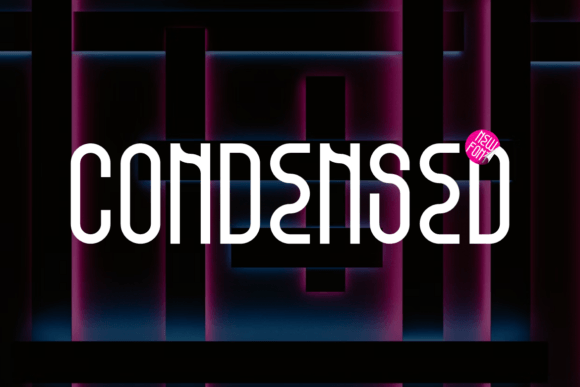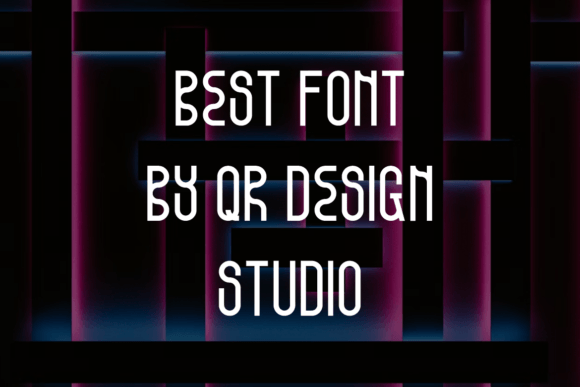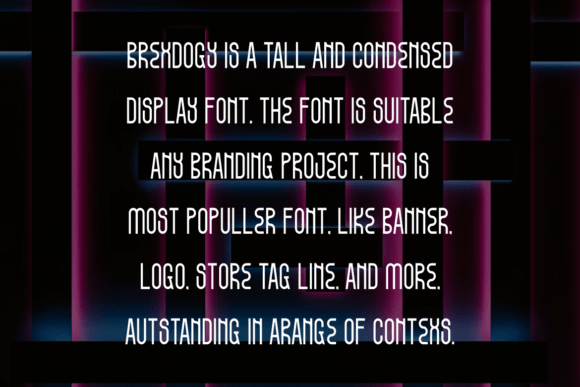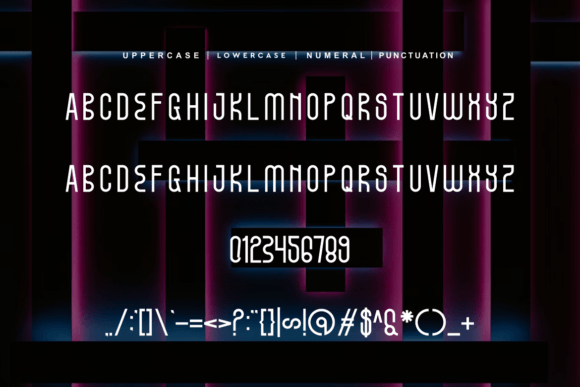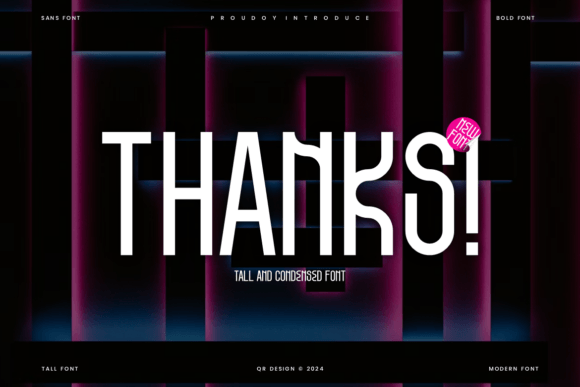
Introducing Brexdogy Font: The Ultimate Display Font for Bold Designs
In the world of typography, fonts play a crucial role in conveying the tone and personality of a brand. For designers and crafters, finding the perfect font that embodies the essence of their project can be a daunting task. However, if you’re looking for a bold and authentic display font that can elevate your branding projects, look no further than Brexdogy Font. In this article, we’ll dive into the features and benefits of Brexdogy – Tall Font and explore its versatility in various design contexts.
What is Brexdogy Font?
Brexdogy – Tall Font is a bold and authentic display font designed to make a statement. Its tall and striking appearance makes it perfect for branding projects that require a strong visual presence. Whether you’re working on a logo, sports-related design, or any other project that demands attention, Brexdogy Font is an excellent choice.
Key Features of Brexdogy Font
- Bold and Authentic: Brexdogy Font boasts a bold and authentic style that’s sure to grab attention.
- Tall and Striking: The font’s tall appearance makes it perfect for designs that require a strong visual presence.
- Versatile: Brexdogy Font is suitable for a wide range of design contexts, including logos, sports, and more.
- Ease of Use: The font is easy to use and can be integrated into various design software.
Benefits of Using Brexdogy Font
So, why should you choose Brexdogy Font for your design projects? Here are some benefits that make it an excellent choice:
- Enhance Your Brand’s Visibility: With Brexdogy Font, you can create bold and eye-catching designs that grab attention and enhance your brand’s visibility.
- Stand Out from the Crowd: The font’s unique and striking appearance ensures that your designs stand out from the crowd and leave a lasting impression.
- Save Time and Effort: Brexdogy Font is easy to use and integrate into your design workflow, saving you time and effort.
Design Contexts Where Brexdogy Font Excels
Brexdogy Font is an incredibly versatile font that can be used in a wide range of design contexts. Here are some examples:
- Logo Design: The font’s bold and striking appearance makes it perfect for logo designs that require a strong visual presence.
- Sports Design: Brexdogy Font is ideal for sports-related designs, such as jerseys, posters, and flyers.
- Advertising: The font’s attention-grabbing style makes it suitable for advertising designs, including billboards, magazine ads, and social media graphics.
Tips for Using Brexdogy Font Effectively
To get the most out of Brexdogy Font, here are some tips to keep in mind:
- Use it Sparingly: Brexdogy Font is bold and attention-grabbing, so use it sparingly to avoid overwhelming your design.
- Experiment with Colors: The font looks great in bold colors, so experiment with different color combinations to find the perfect fit for your design.
- Pair it with Other Fonts: Brexdogy Font can be paired with other fonts to create a unique and visually appealing design.
In conclusion, Brexdogy – Tall Font is an exceptional display font that’s perfect for designers and crafters looking to create bold and attention-grabbing designs. Its versatility, ease of use, and striking appearance make it an excellent choice for a wide range of design contexts. Whether you’re working on a logo, sports design, or advertising project, Brexdogy Font is sure to elevate your design and leave a lasting impression.